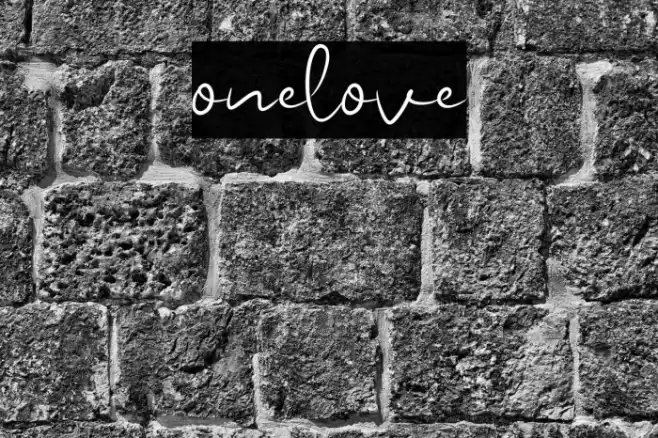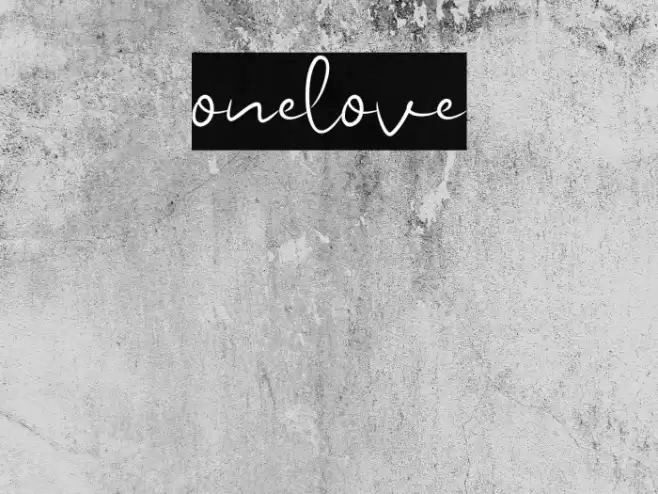
onelove Font
onelove Description
This font features a flowing, cursive style that exudes elegance and sophistication. The letters are interconnected, creating a seamless and fluid appearance. The uppercase letters are tall and slender, with graceful curves and loops that add a touch of whimsy. The lowercase letters maintain a consistent style, with smooth transitions between strokes. The overall design is delicate yet impactful, making it suitable for projects that require a personal and artistic touch. The font's unique character is enhanced by its handwritten quality, giving it a warm and inviting feel.
A flowing, cursive font with elegant, interconnected letters and a handwritten style from Uncategorized fonts.
- Proposed Projects: Ideal for wedding invitations, greeting cards, personal branding, and artistic projects.
- Overall Style: Elegant, Artistic
- Use Case: Logos, Invitations, Artistic projects